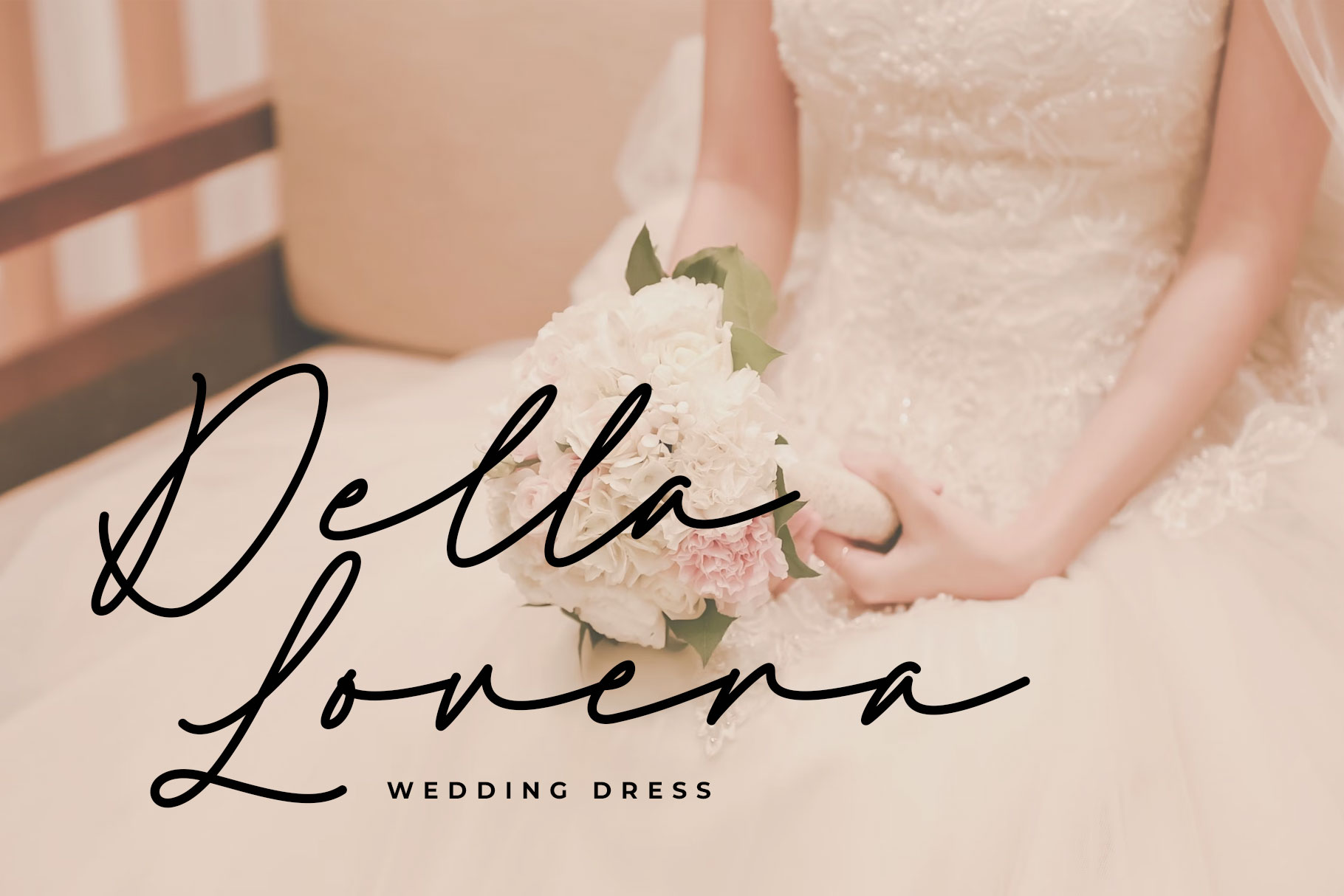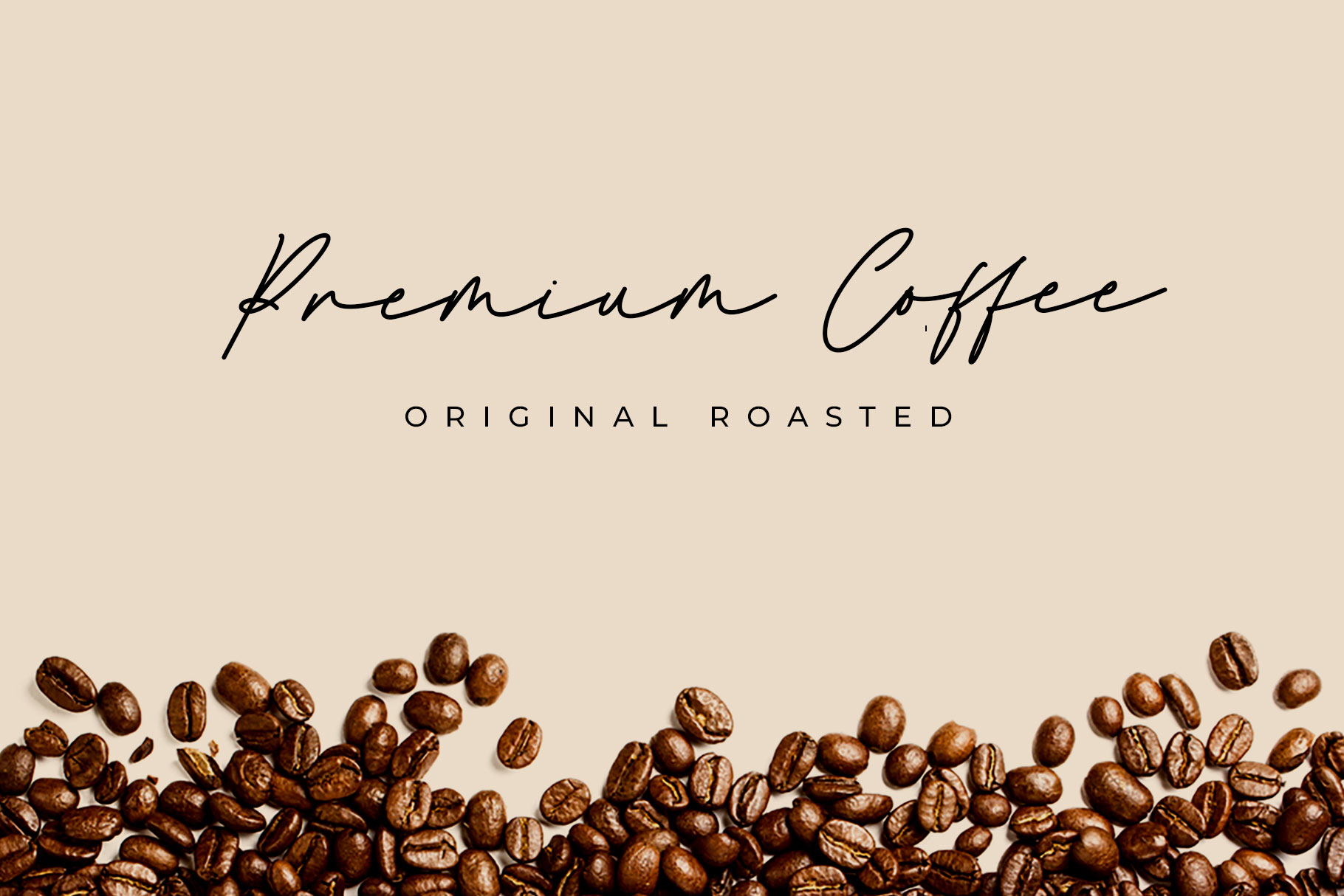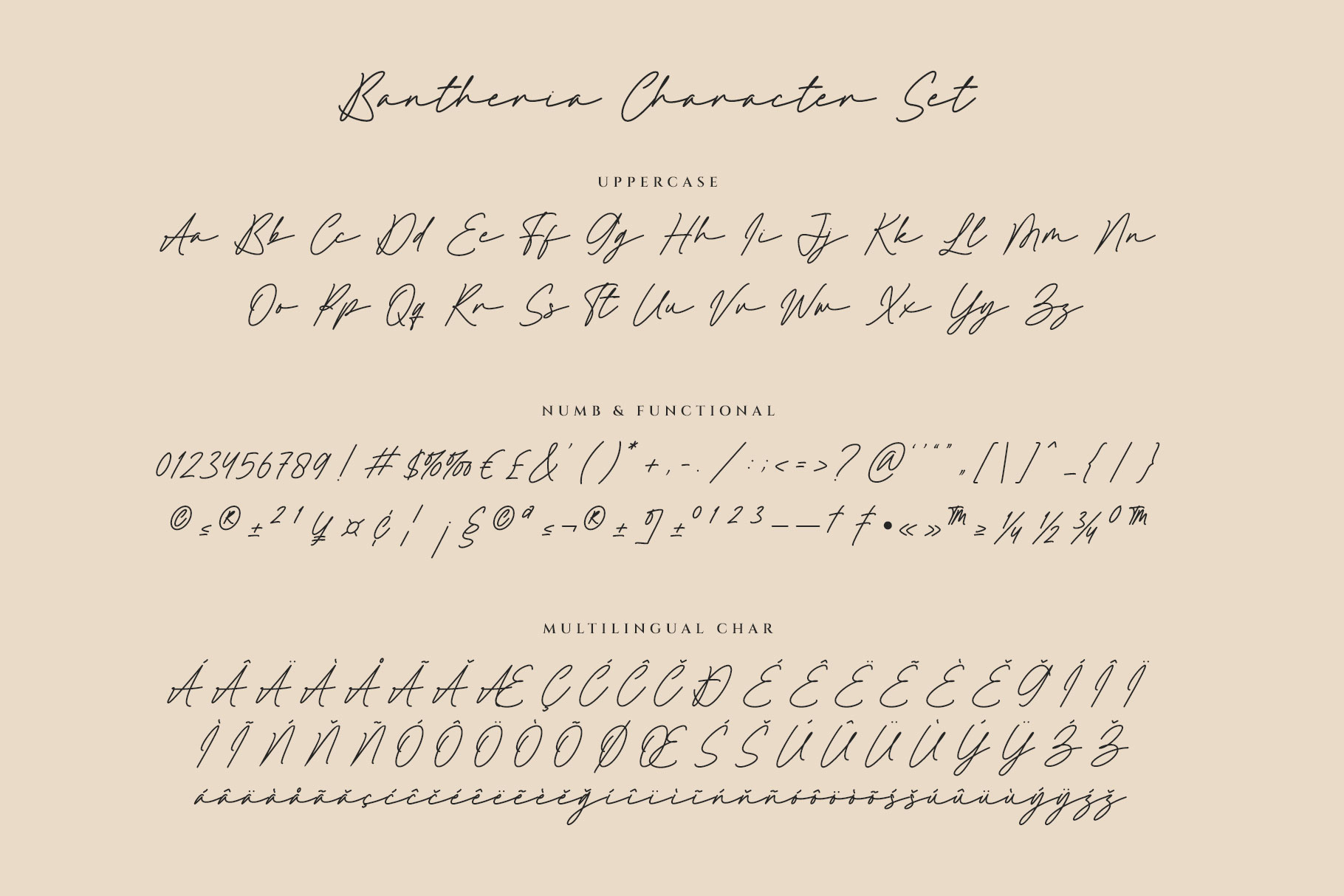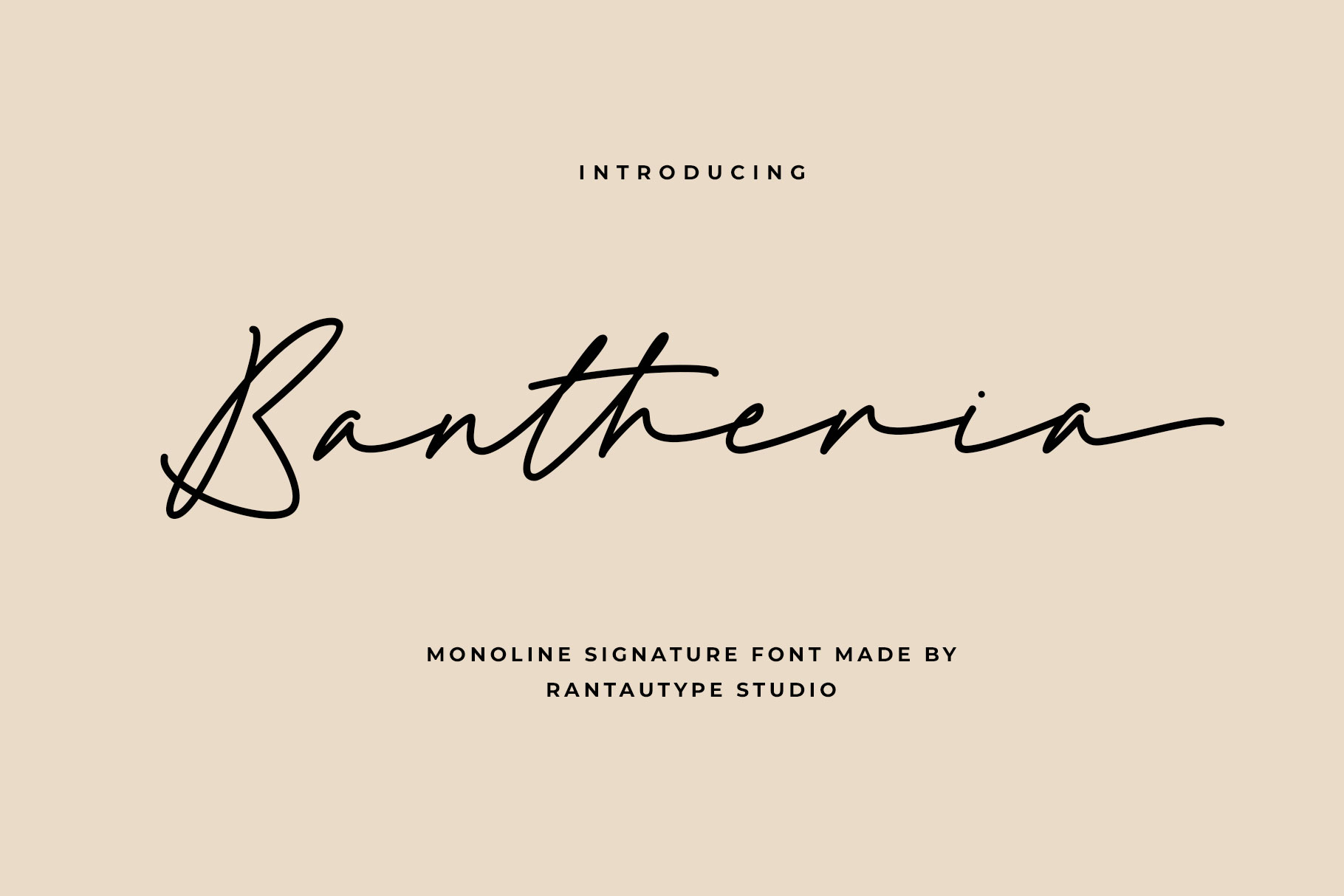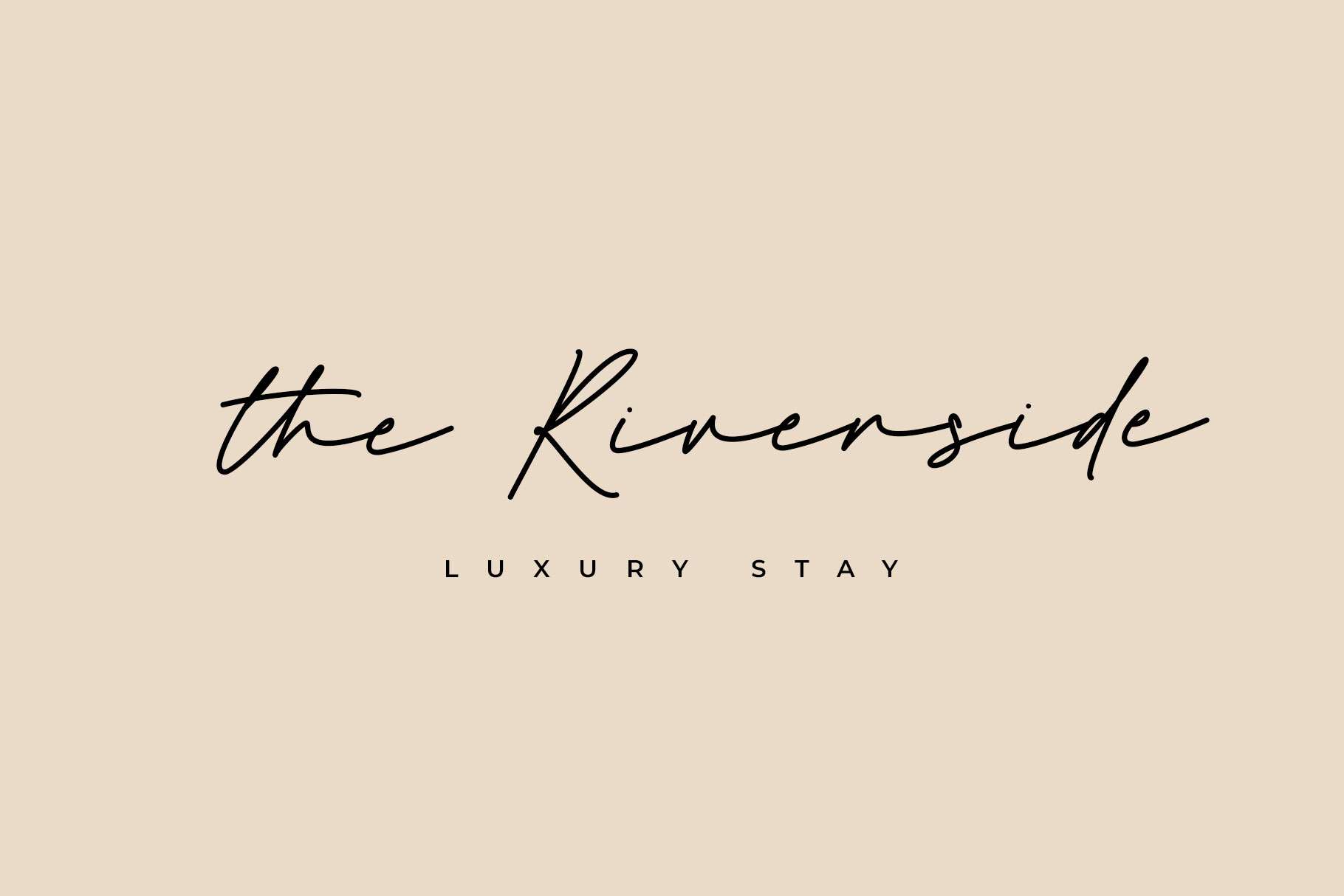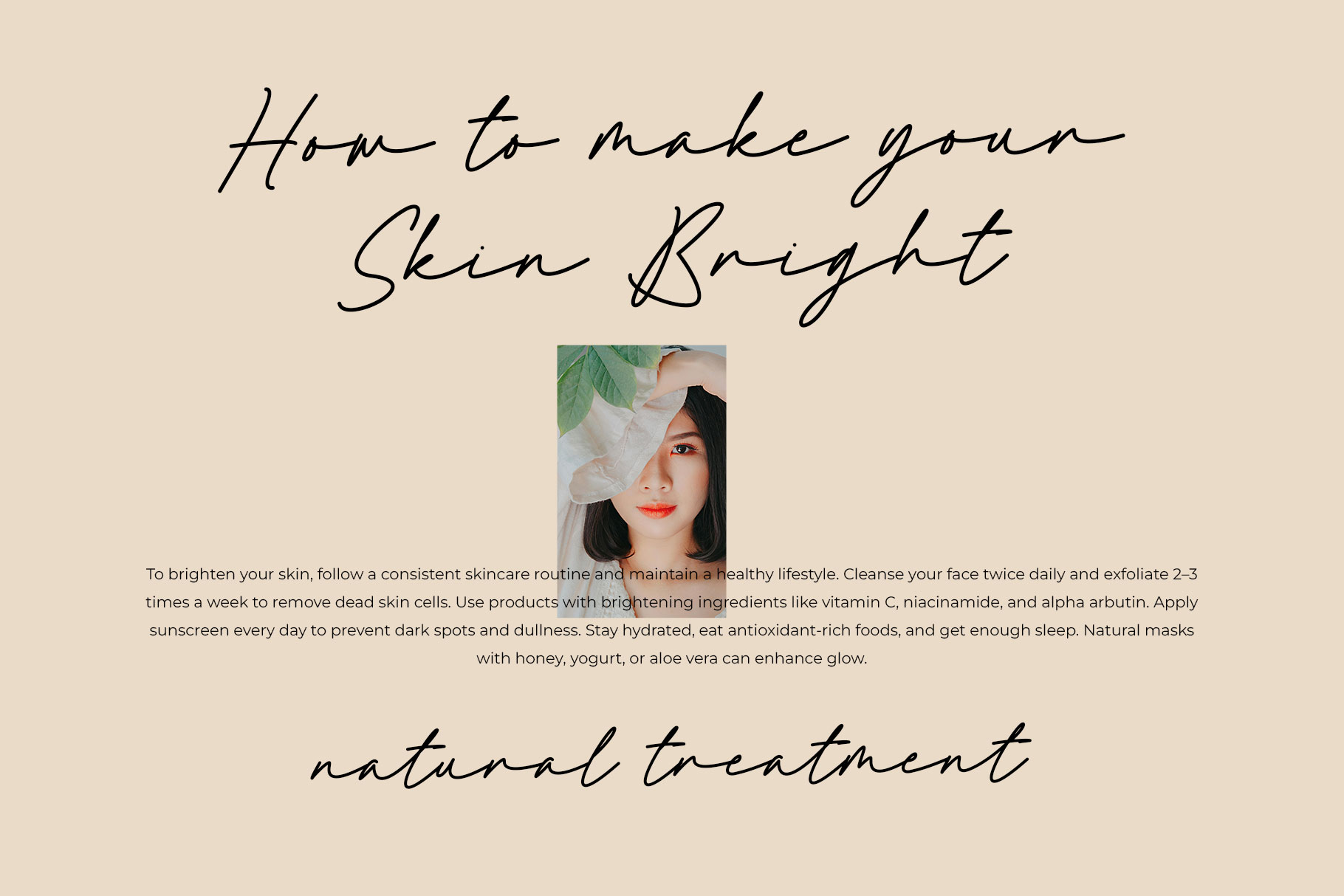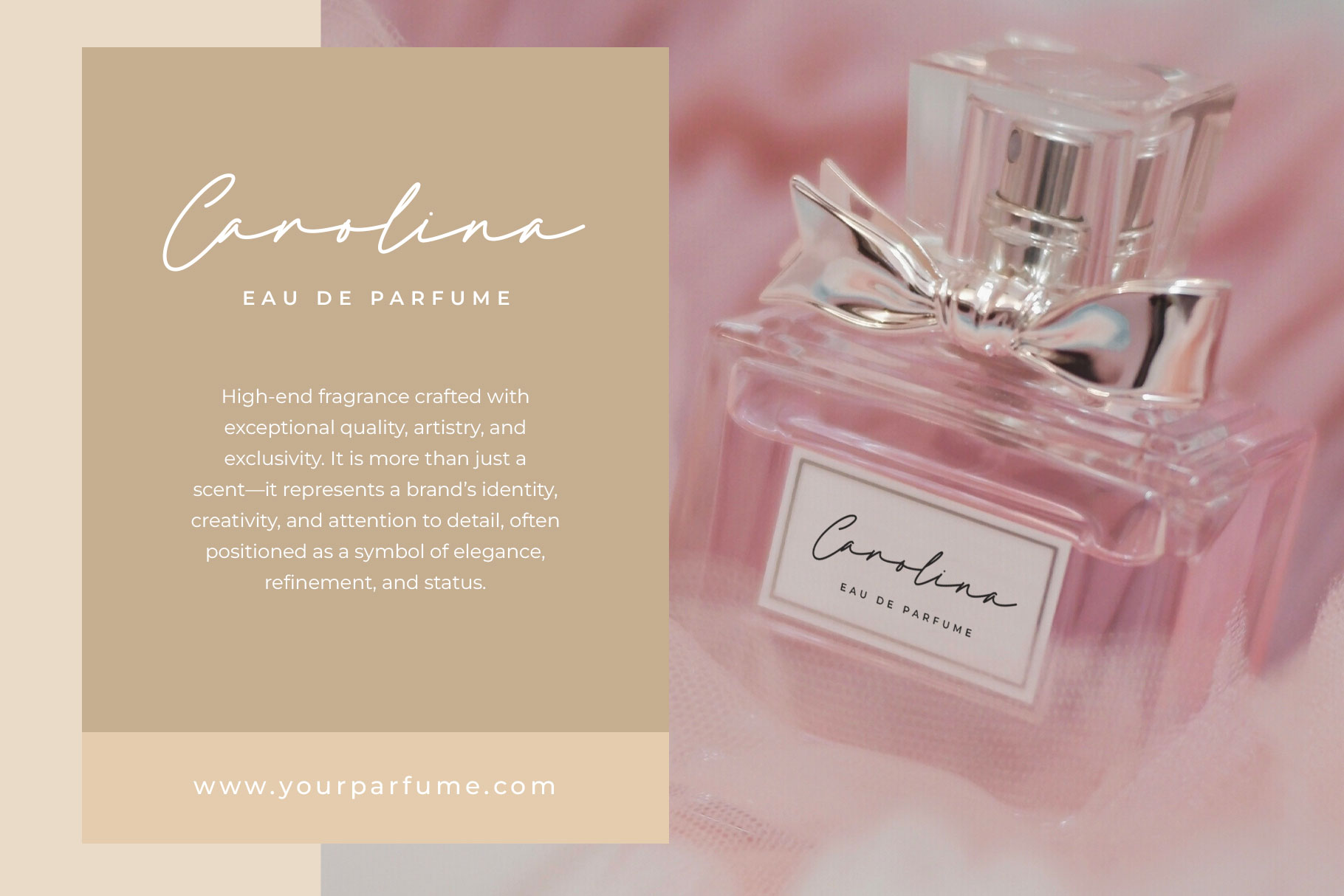
Bantheria
Bantheria is a sleek, single-weight typeface that mimics natural handwriting with consistent stroke thickness. Bantheria is a perfectly choice for any creative endeavor, creating, modern, lifestyle design such as logotype, title, cover, branding, invitations, wedding designs, display and magazine, social media posts, advertisements, printed quotes, product packaging, corporate brand, product designs, labels, photography, watermarks, special events and any other project with modern touch.